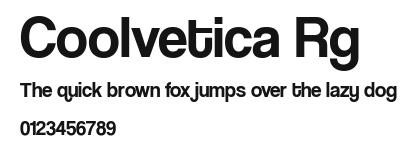
• Font Name: Coolvetica Rg
• Designer: Ray Larabie
About Coolvetica Rg.ttf
Coolvetica Rg.ttf is a modern, elegant sans-serif font designed for ultimate readability and visual harmony. Perfect for branding, headlines, web design, and print materials.